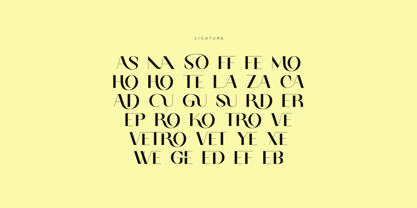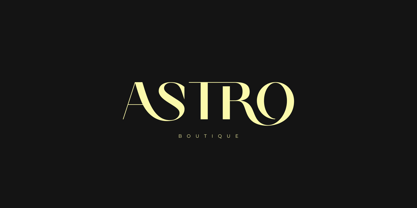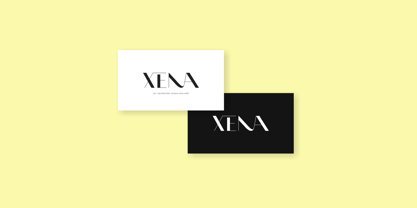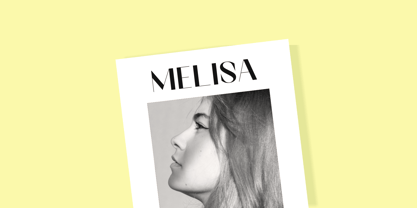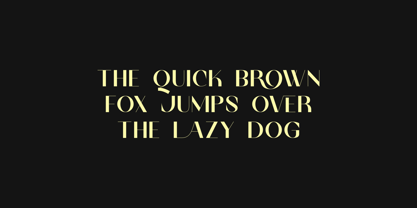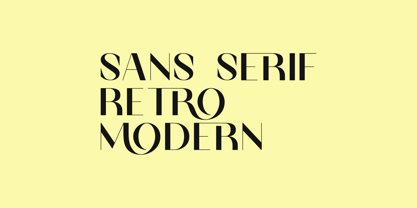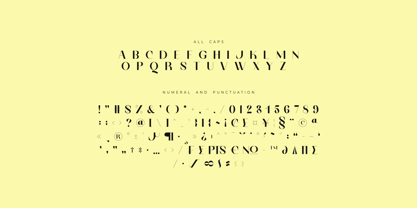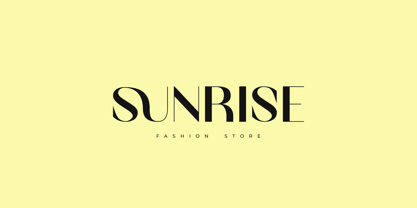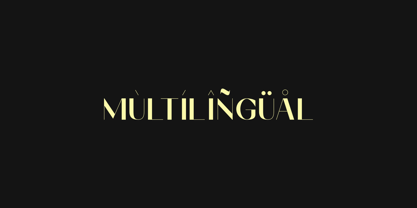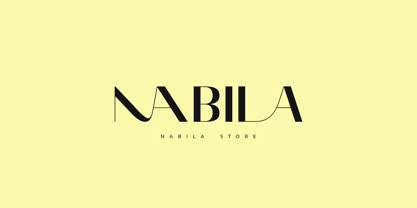
Vetro
Die Schriftfamilie Vetro wurde von ahmad suhadi entworfen und von suhadidesign veröffentlicht. Vetro enthält 1 Stile. Mehr über diese Familie
Vetro - Modern Ligature Font Hello, ladies and gentlemen! The latest stylish modern font is here, and it's highly sought after by both women and men. This is the Vetro font. Vetro is a modern and stylish sans serif font. With its modern design and ligature feature, this font has become a favorite on the market. We've kept this font looking elegant, classy, ​​and stylish. Vetro is the perfect choice for cosmetics, beauty, brands, logos, trademarks, magazines, designs, books, publications, branding, brand names, business cards, social media, classy designs, newspapers, branding, beauty, and other projects. Vetro is here to elevate the quality of your designs. Stay tuned for the latest information on font creation :) Features: • All Capital Letters • Ligatures • Multilingual Support • Numbers • Punctuation Thank you